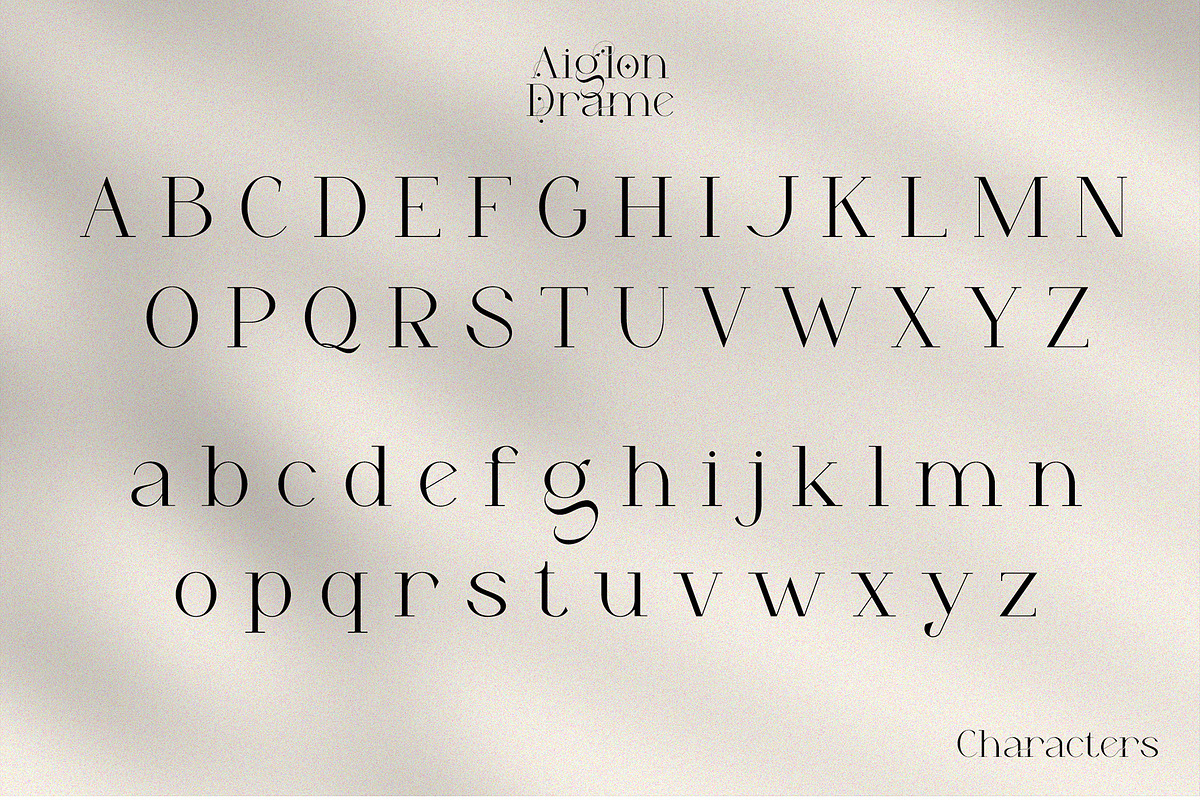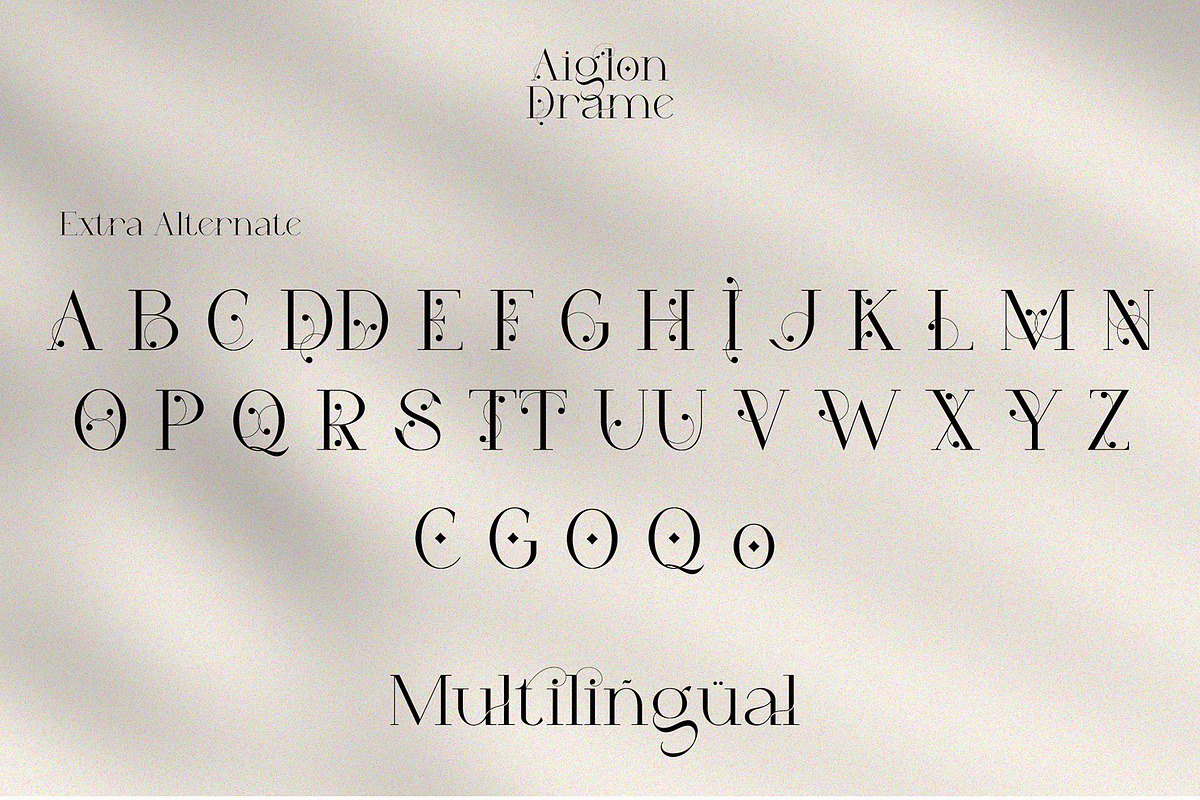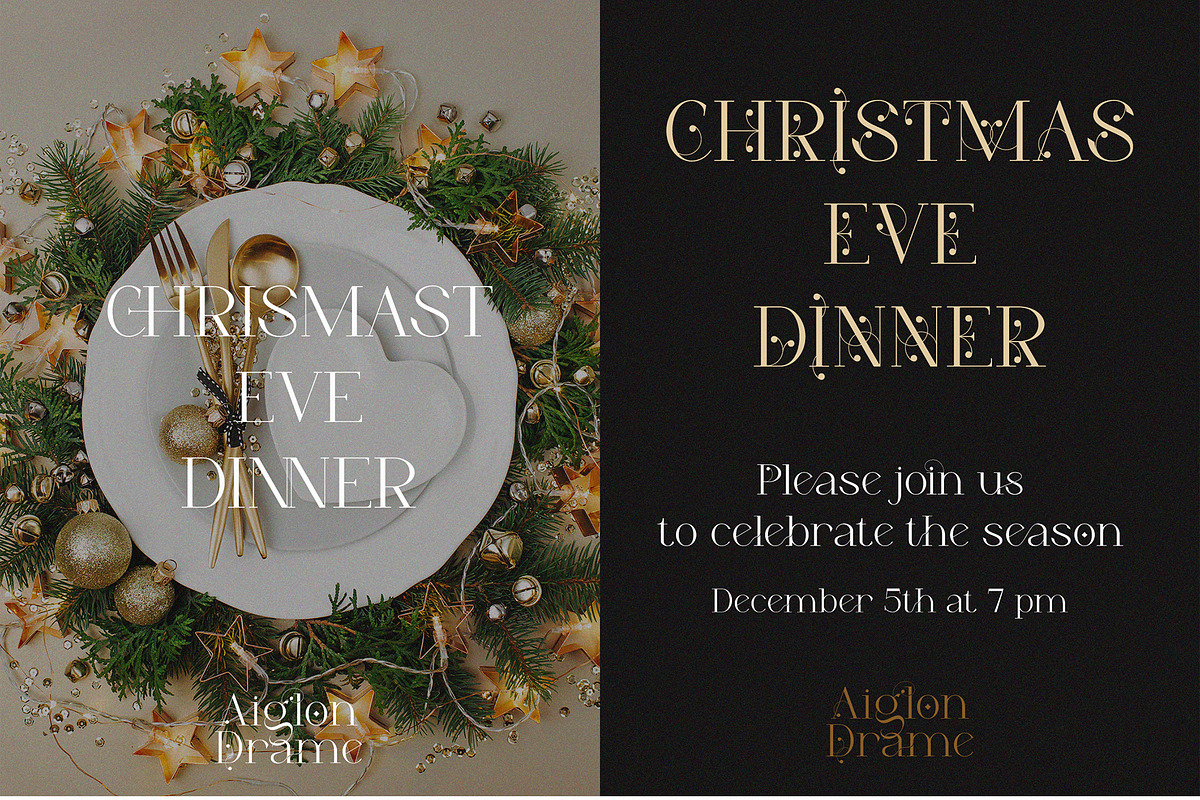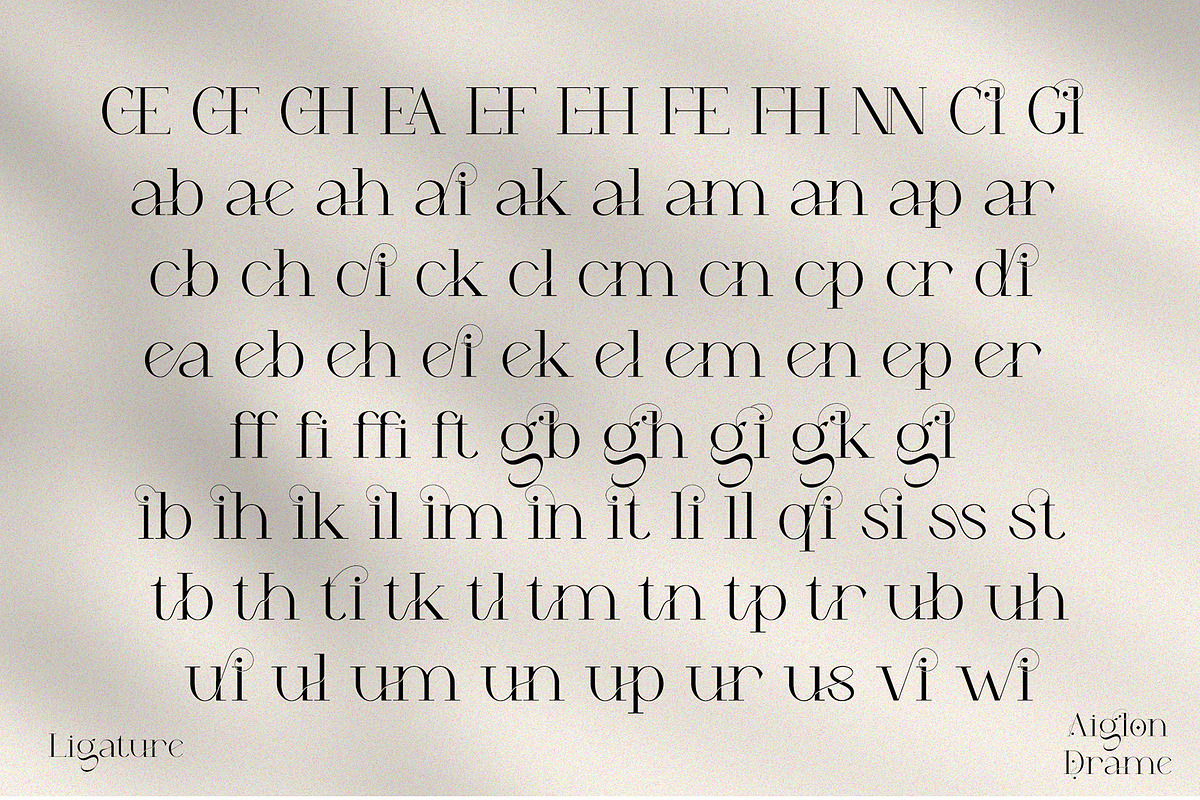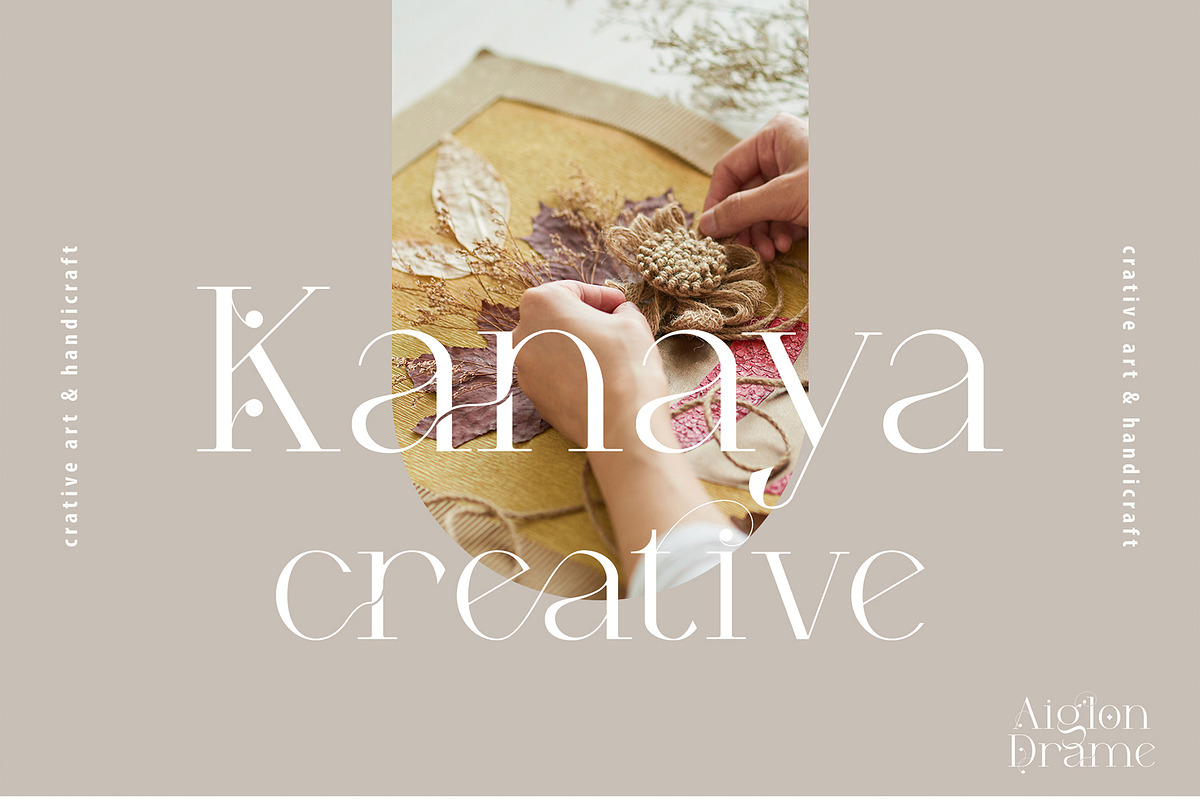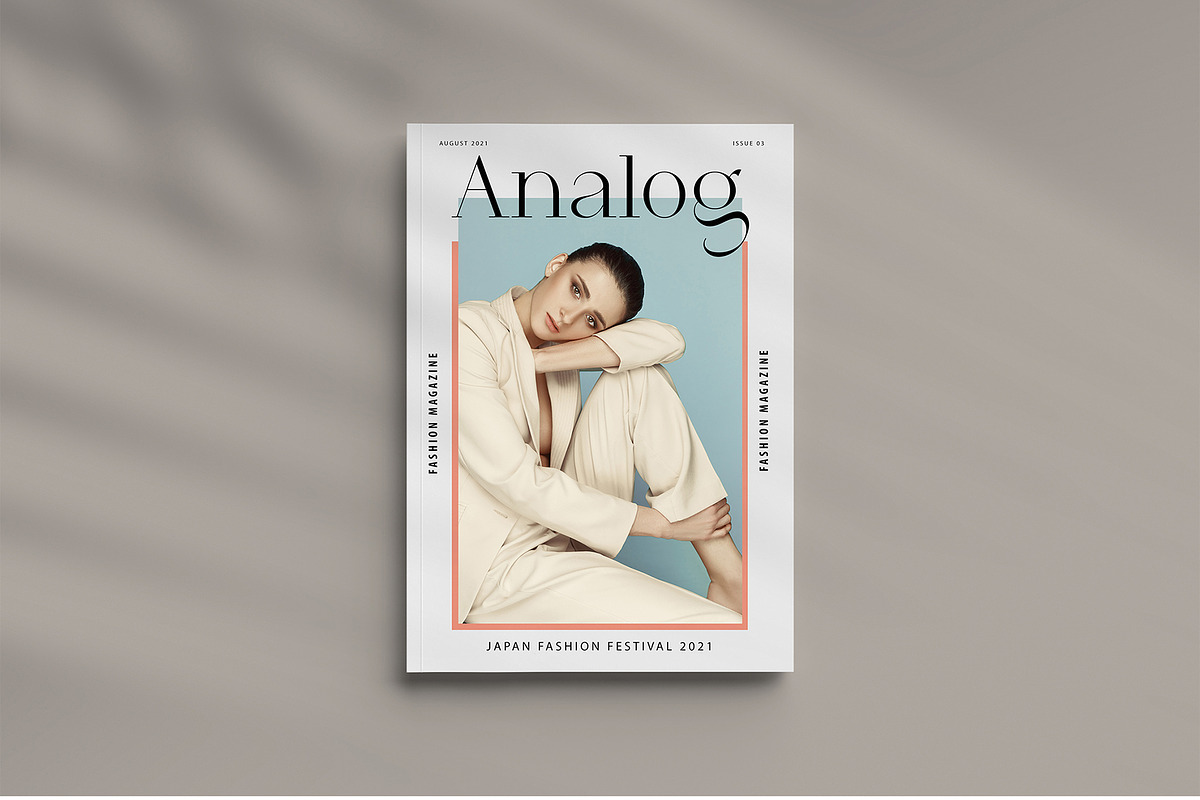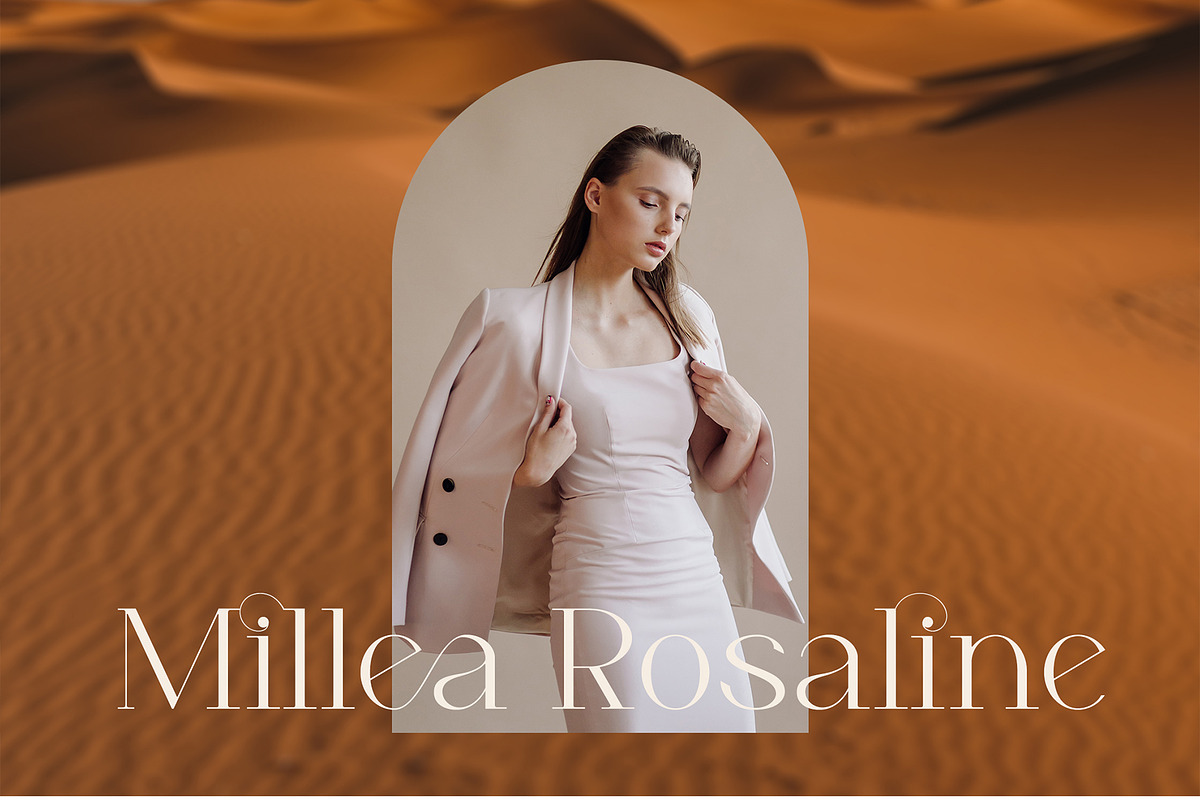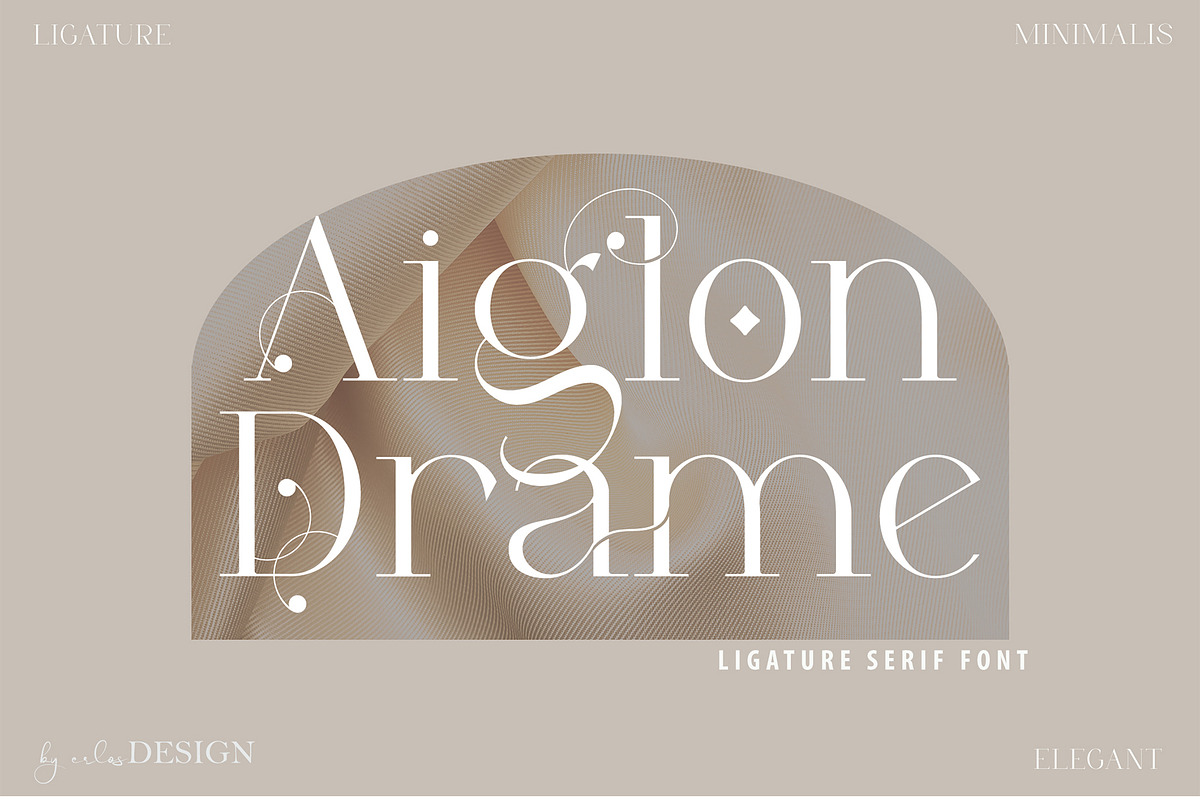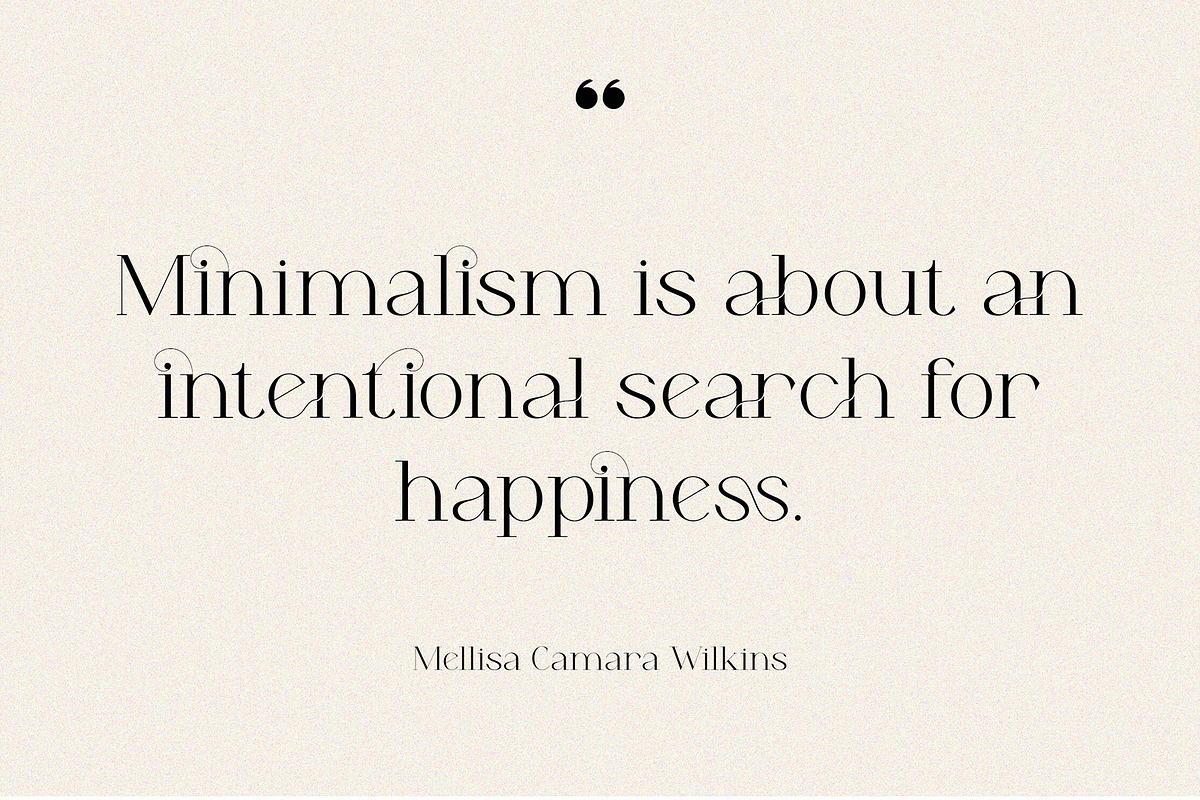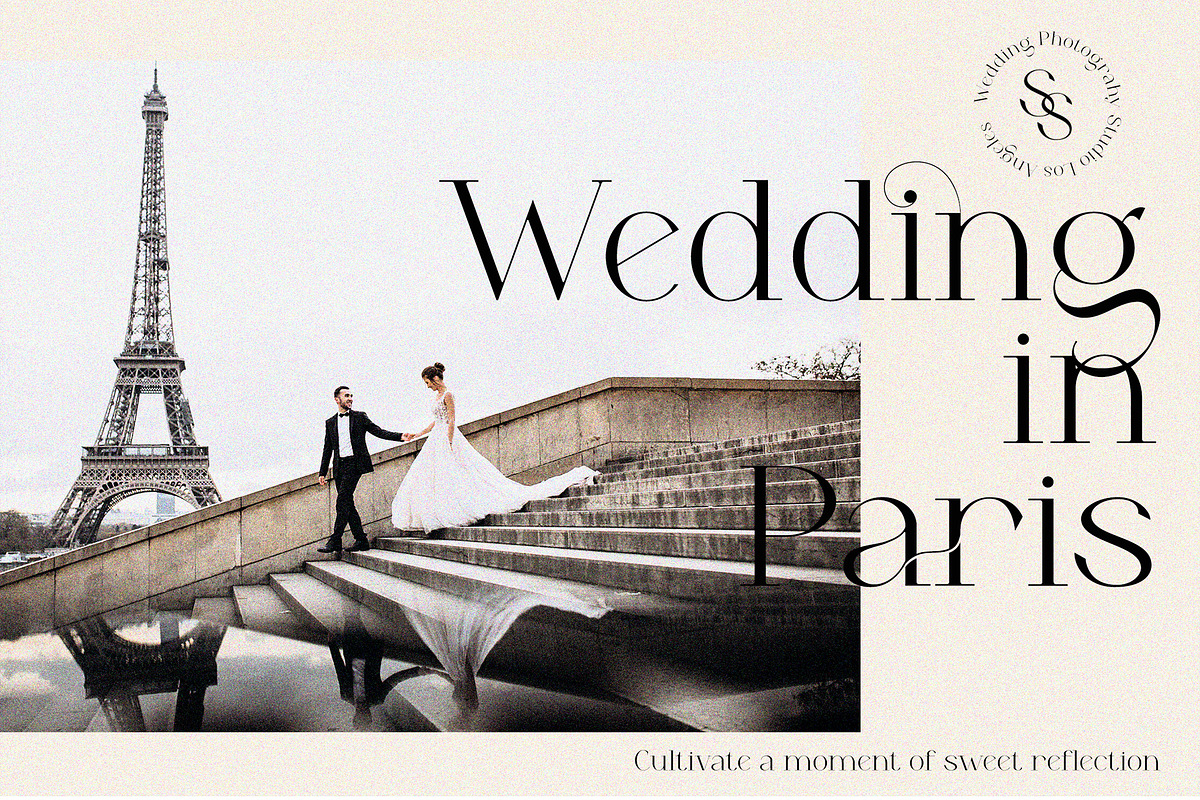
Aiglon Drame - Modern Ligature Serif
Aiglon Drame - Modern Ligature Serif by erlosDESIGN
Aiglon Drame is a ligature serif font with modern style. It includes uppercase letters, numeral, a large range of punctuation, ligatures, alternates and also multilingual support. Perfects for poster, web design, magazine cover, album cover , branding and much more.